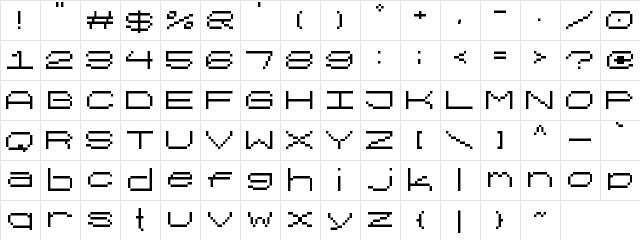
SLIG Wide Regular
| Designer | Omniize |
Design Context for SLIG Wide Typeface
SLIG Wide offers clean, dependable letterforms without strong stylistic allegiance, making it a practical choice for designers who need flexibility.